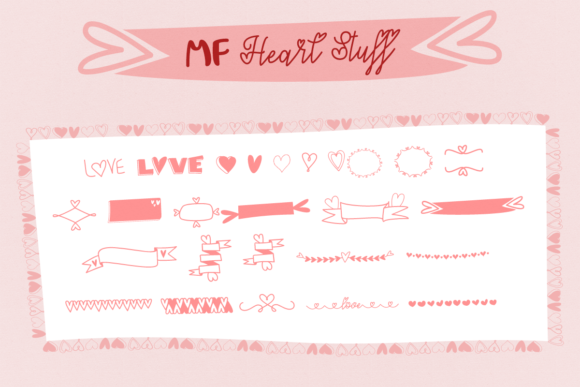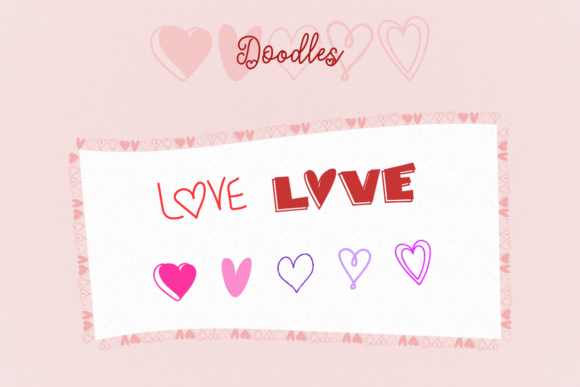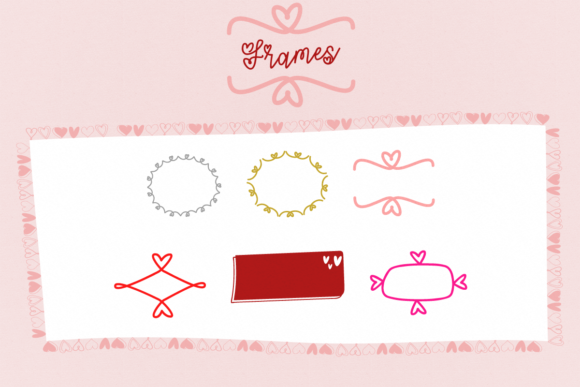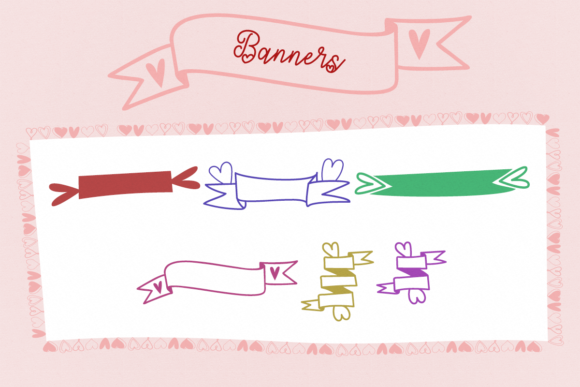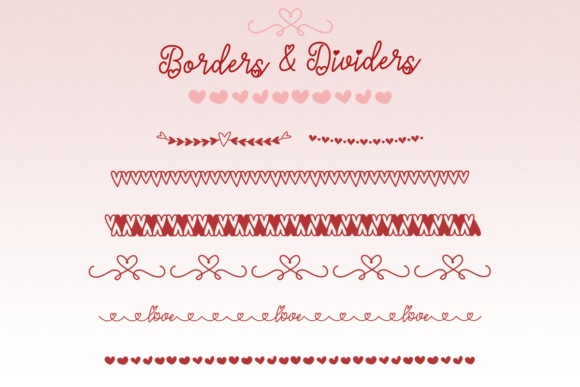
About MF Heart Stuff Font
MF Heart Stuff sounds like a wonderful and versatile dingbats font that can add a touch of love and creativity to your projects, not only for Valentine’s Day but also for other occasions. With its collection of doodles, frames, banners, borders, and dividers, you have a range of elements to enhance your designs. Here are some ideas on how to make the most of MF Heart Stuff:
1. Valentine’s Day Cards: Create heartfelt and personalized Valentine’s Day cards using the doodles, frames, and borders from MF Heart Stuff. Combine them with romantic messages or illustrations to express your love and affection. The variety of elements in the font will allow you to design unique and charming cards.
2. Love Letters and Notes: Use the dividers and frames from MF Heart Stuff to embellish your love letters or special notes. These decorative elements can add a touch of romance and elegance to your written expressions. Arrange them around your text or use them as page borders for a visually appealing presentation.
3. Social Media Graphics: Spread love and positivity on your social media platforms using MF Heart Stuff. Create eye-catching graphics for posts, stories, or profile pictures by incorporating the doodles and banners into your designs. Whether you’re sharing inspirational quotes, love-themed messages, or celebrating milestones, these elements can help capture attention and engage your audience.
4. Wedding Invitations and Stationery: If you’re planning a wedding or designing wedding invitations, MF Heart Stuff can be a valuable asset. The frames and borders can add a touch of elegance and romance to your wedding stationery. Use them to frame text, highlight important details, or create intricate patterns for a cohesive and visually appealing wedding theme.
5. Scrapbooking and Photo Albums: Bring your memories to life by incorporating MF Heart Stuff into your scrapbook pages or photo albums. The doodles and frames can be used to highlight special moments, create decorative borders around photos, or add whimsical touches to your layouts. Let your creativity flow as you combine these elements with your photographs and written memories.
6. DIY Crafts and Gifts: Add a personalized touch to your DIY crafts and gifts with the elements from MF Heart Stuff. Use the banners to create custom labels or tags for homemade products or presents. Incorporate the frames and doodles into handmade cards, journals, or other craft projects to add a heartfelt and creative touch.
Remember to explore the various options within MF Heart Stuff and experiment with different combinations to achieve the desired look and feel. The font offers a range of elements that can be mixed and matched to suit your specific project. Whether you’re creating digital designs or working with physical materials, MF Heart Stuff can be a valuable resource for adding love and creativity to your projects, not only for Valentine’s Day but for various occasions throughout the year.